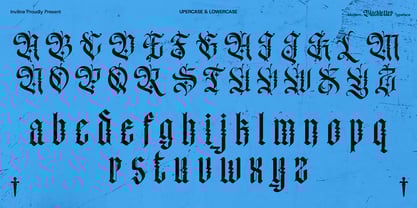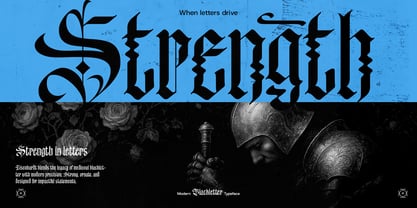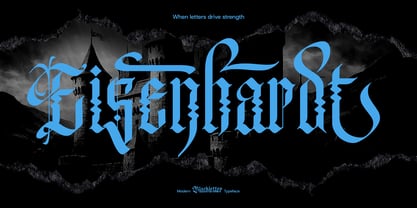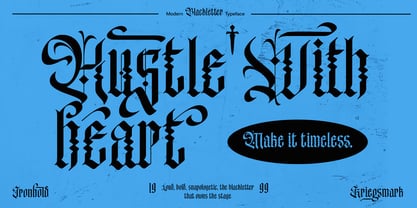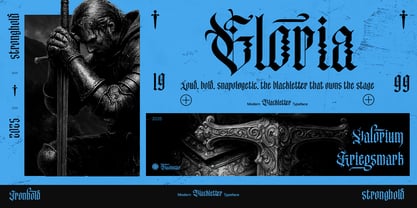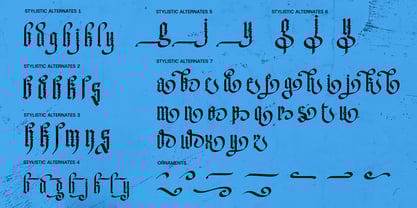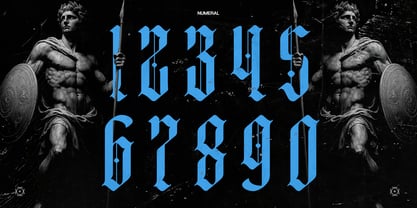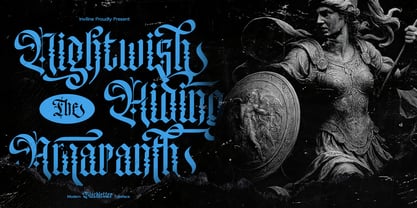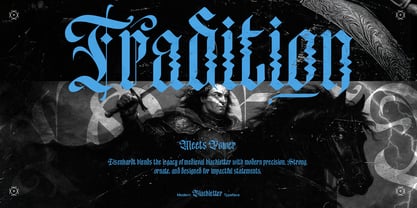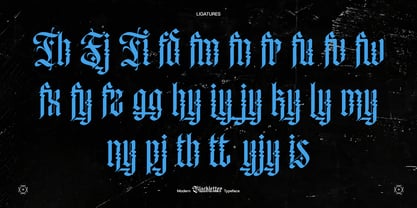
Eisenhardt Pro
by Inviline
The Eisenhardt Pro Font Family was designed by Virgiawan Listanto and published by Inviline. Eisenhardt Pro contains 1 styles.
Eisenhardt is a striking modern blackletter font that merges strong gothic roots with a contemporary twist. Drawing inspiration from medieval scripts and cathedral inscriptions, this typeface offers an imposing visual experience characterized by sharp serifs, tall forms, and edgy detailing. It strikes a perfect balance between dark elegance and bold power, making it ideal for designers who wish to make a statement. Whether you're crafting band merchandise, streetwear branding, gothic posters, or ritualistic packaging, Eisenhardt ensures your typography commands attention. The intricate ligatures and alternate characters add diversity and authenticity to your designs. This bold and dramatic blackletter typeface includes uppercase and lowercase characters, numbers, punctuation, ligatures, seven stylistic alternate sets, ornaments, and multilingual support. It's perfect for gothic branding, horror posters, medieval-inspired designs, fantasy titles, and metal band artwork that require a sharp, expressive typographic presence.